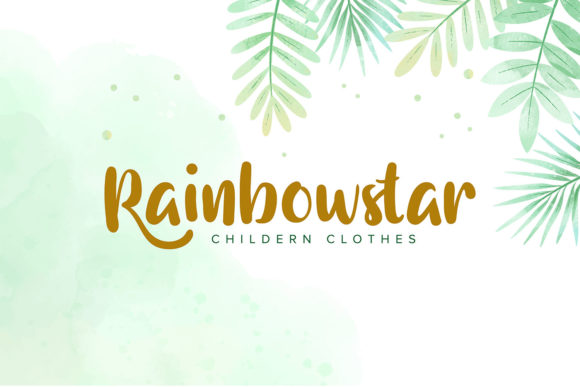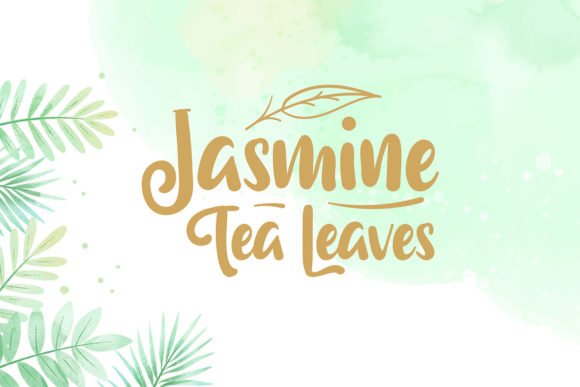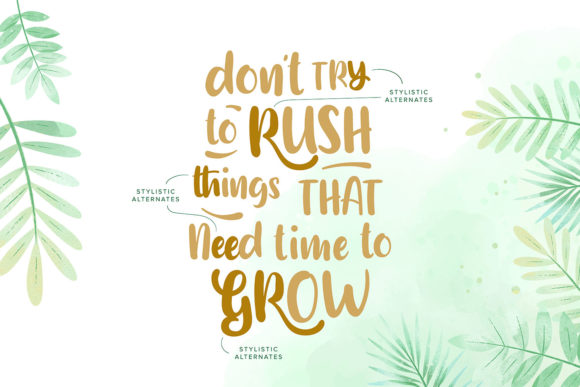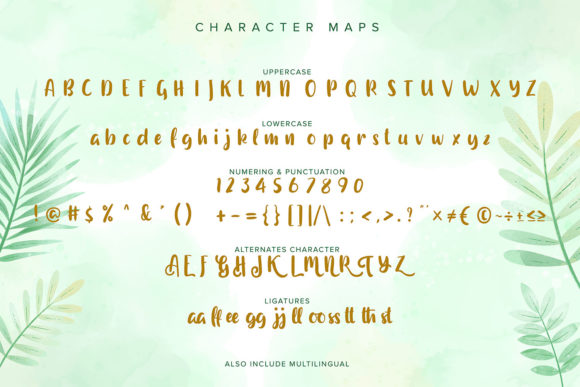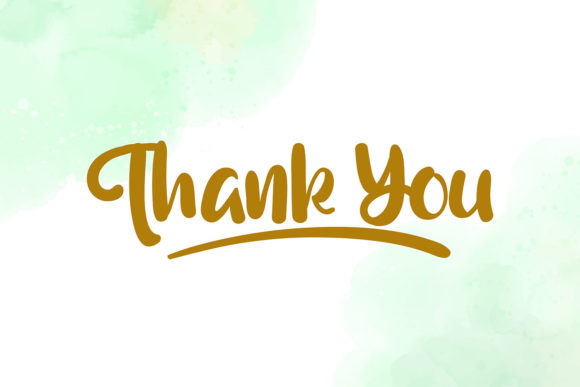
Introduction to Hellington Font
Have you ever been working on a creative project, pouring your heart and soul into it, only to realize that the right font is missing? That’s exactly what happened to me when I stumbled upon the Hellington Font. Its sweet and lovely handwritten style immediately caught my eye, and I knew I had to have it.
As a designer, I can tell you that finding the perfect font can make all the difference in a project. It’s what sets a beautiful design apart from a good one. And that’s exactly what the Hellington Font offers – a high-quality, free download that’s perfect for any creative project.
With its transparent background and versatility, the Hellington Font is a valuable resource for designers. Whether you’re creating stunning wedding invitations, gorgeous stationary art, or eye-catching social media posts, this font is sure to elevate your design to the next level.
Key Features of Hellington Font
- High-quality design: Hellington Font offers a sophisticated and elegant look, making it perfect for creative projects that require a touch of sophistication.
- Unique characteristics: Hellington Font features a unique blend of modern and classic elements, giving it a distinctive look that sets it apart from other fonts.
- Perfect for design projects: Whether you’re working on a logo, brochure, or website, Hellington Font is an excellent choice for any creative project that requires a high-quality design resource.
Honest Review: Hellington Font
One of the standout features of the Hellington Font is its transparent background, which makes it incredibly versatile. I used it for a recent design project and was impressed by how well it paired with the other design elements. The font’s clean and modern aesthetic is perfect for a wide range of applications, from branding to editorial design.
Here are some of the things that work well with the Hellington Font:
- ✨ High quality design that’s perfect for creative projects
- ✨ Transparent background, allowing for easy pairing with other design elements
However, I did encounter a few limitations with the Hellington Font:
- ⚠️ Limited character set, which may not be suitable for complex designs
- ⚠️ Not as extensive a font family as some other options on the market
Overall, I was impressed by the Hellington Font and would definitely recommend it as a design resource. While it may not be perfect, its high quality and versatility make it an excellent choice for a wide range of creative projects.
Tips for Getting the Most Out of Hellington Font
To get the most out of Hellington Font, experiment with different font sizes, colors, and styles to create a unique and eye-catching design. You can also use the font in combination with other design elements to create a cohesive and professional-looking project.